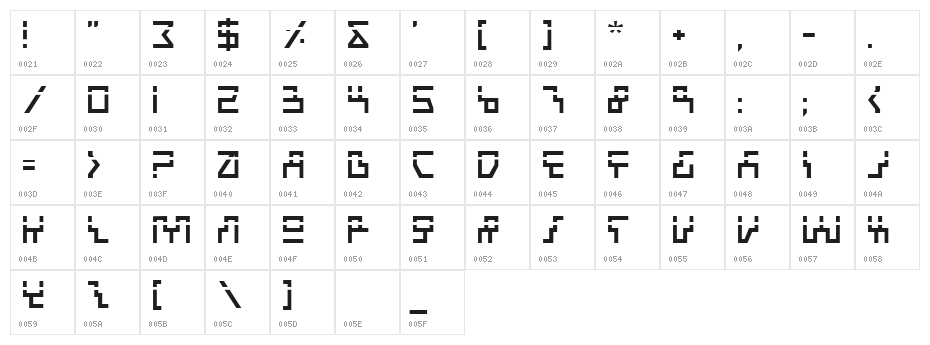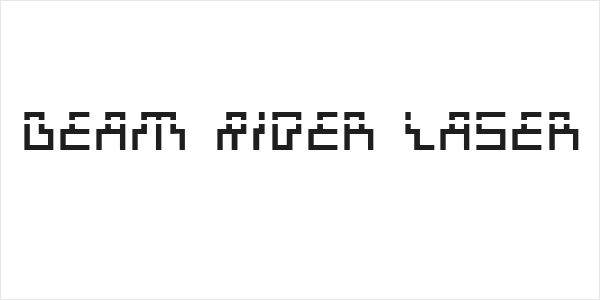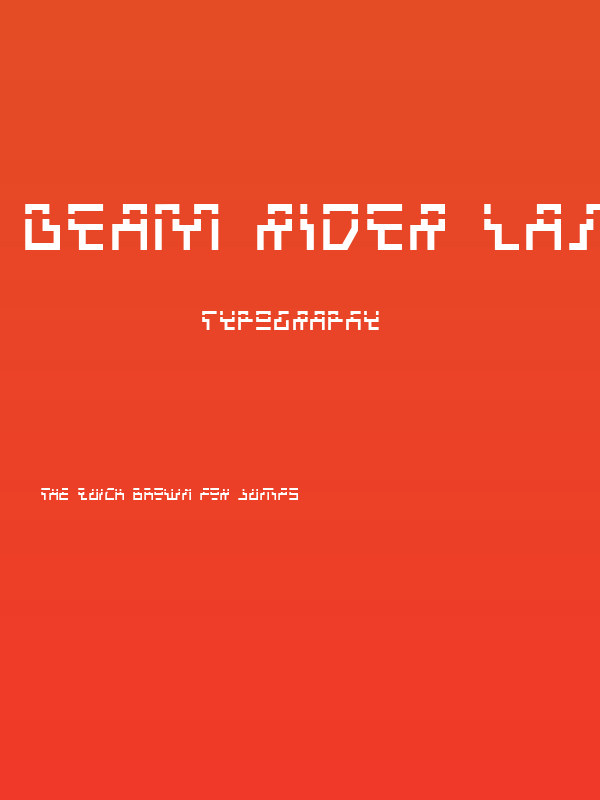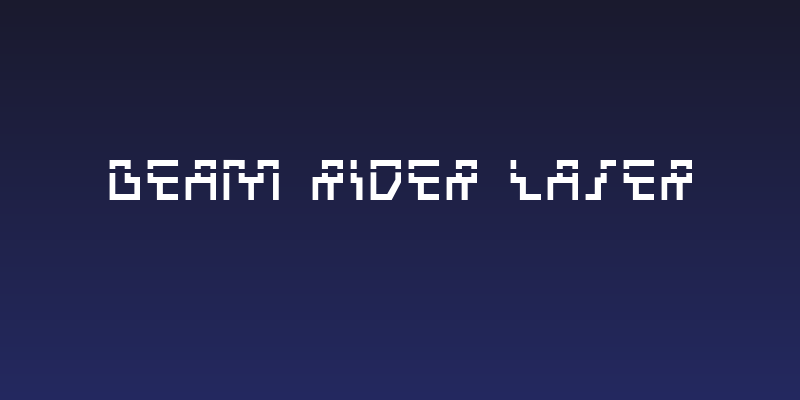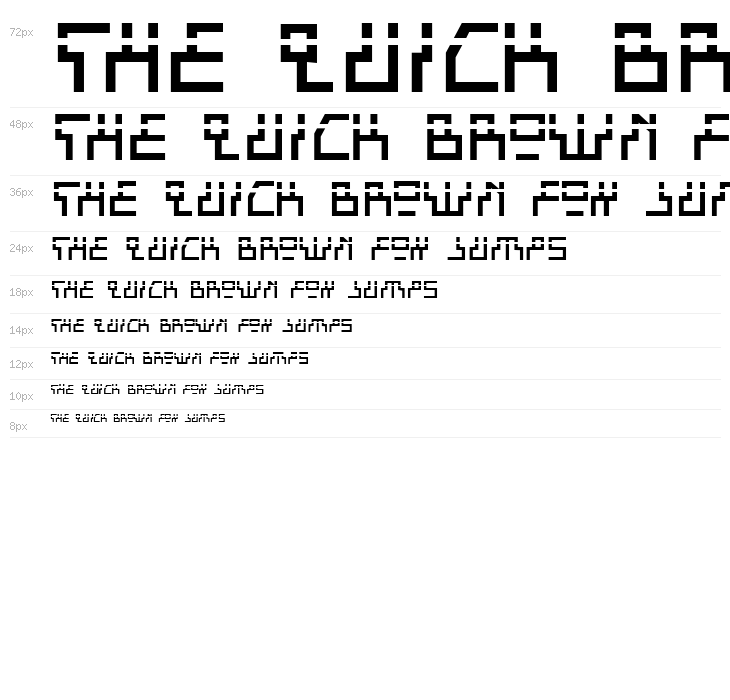
Beam Rider Laser Font
Beam Rider Laser Description
This font features a futuristic and geometric design, characterized by sharp angles and a digital aesthetic. The characters are constructed with a blocky, pixelated style, reminiscent of early computer graphics or arcade game typography. Each letter and number is distinct, with a consistent use of straight lines and right angles, creating a cohesive and uniform appearance. The font's unique style is both bold and eye-catching, making it suitable for projects that require a modern and technological feel. The special characters maintain the same angular and structured design, ensuring visual harmony across all elements.
| Proposed Projects | Ideal for video game titles, tech-themed posters, sci-fi book covers, and digital art projects. |